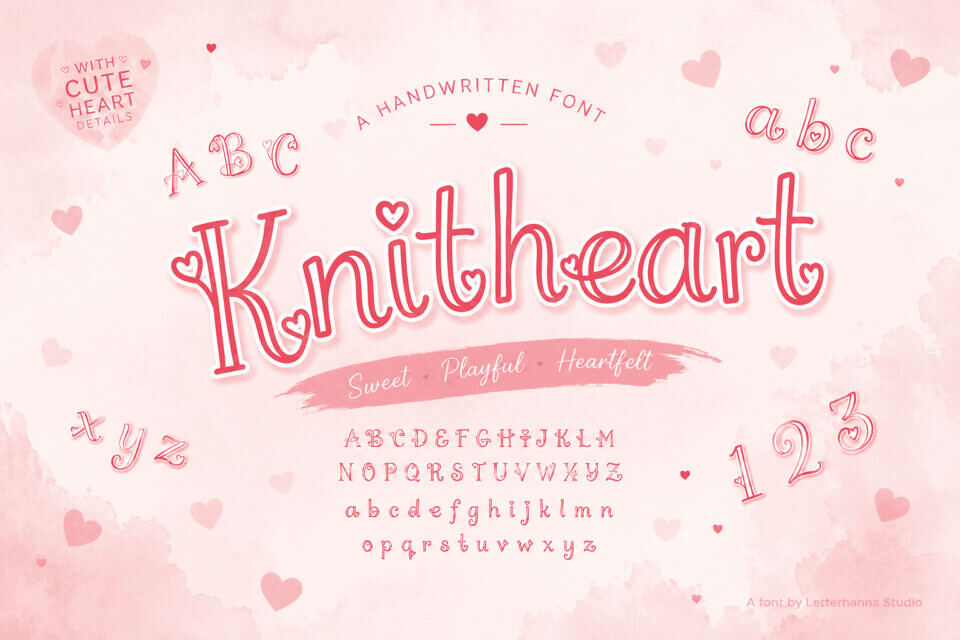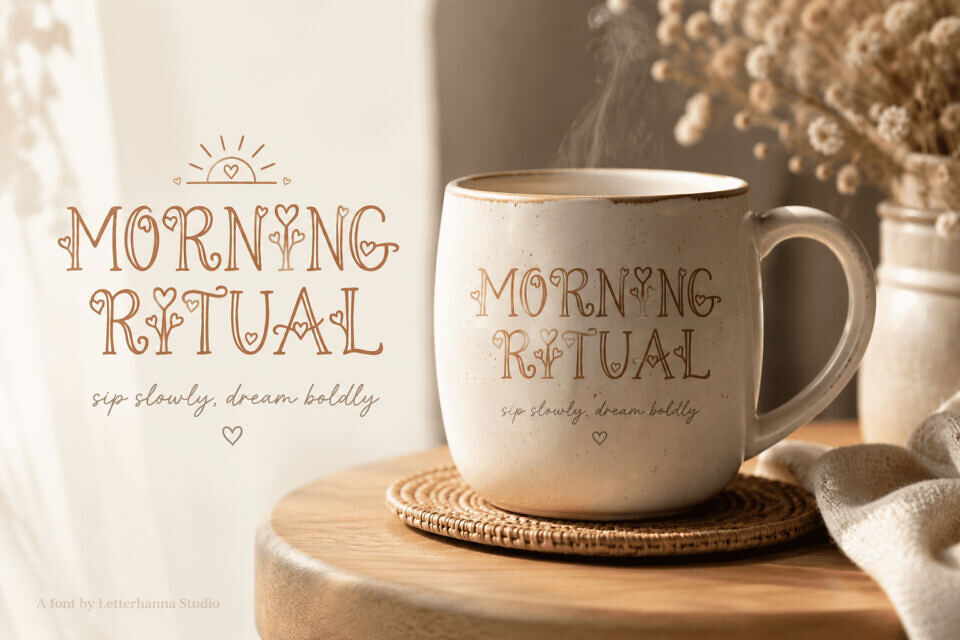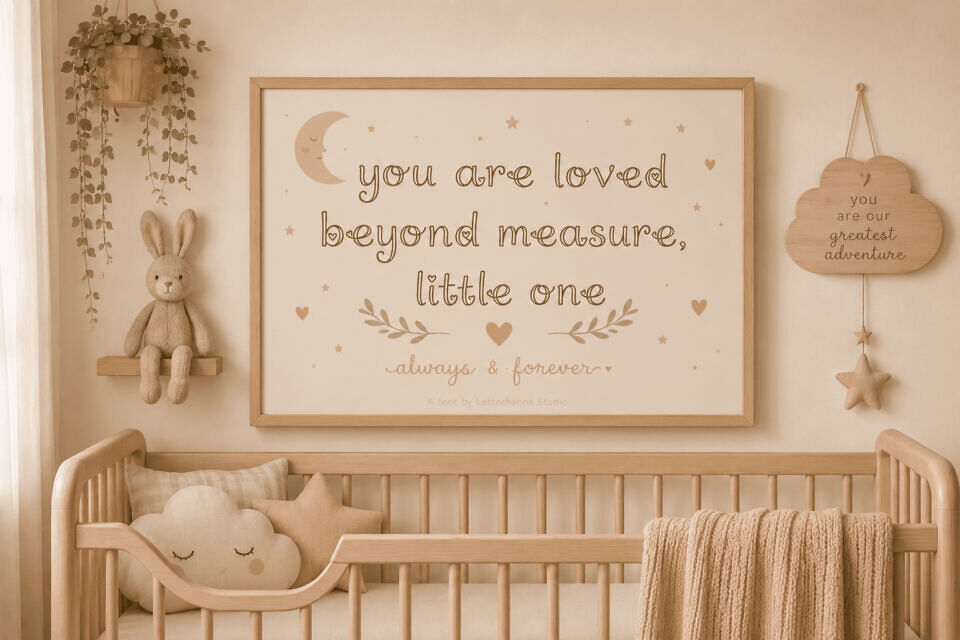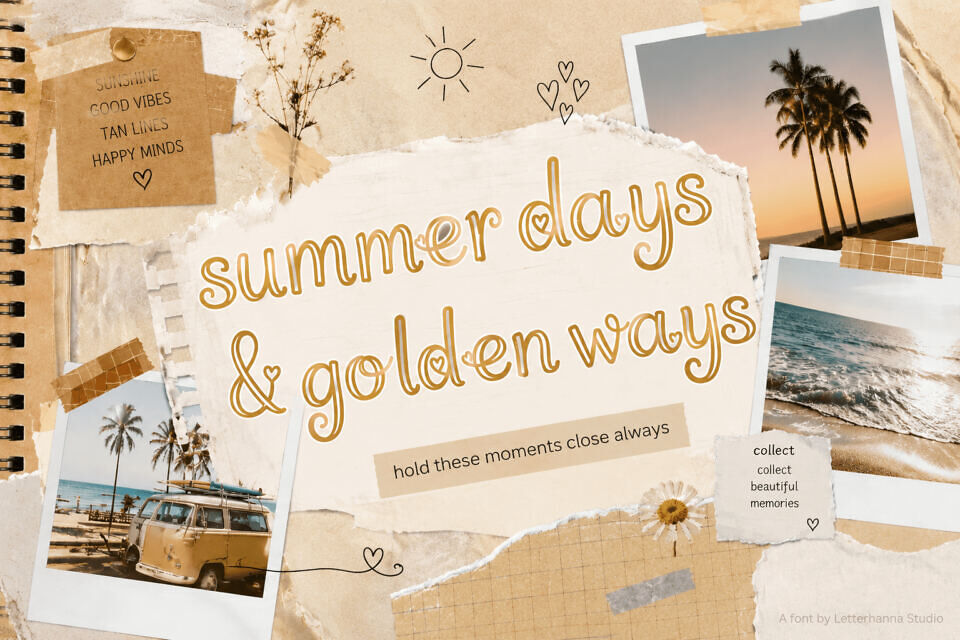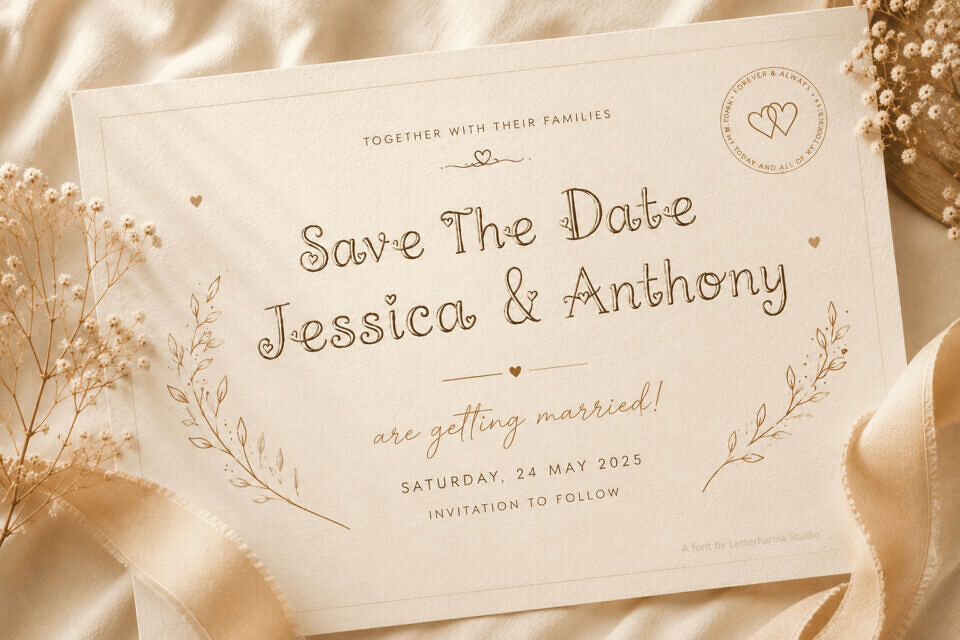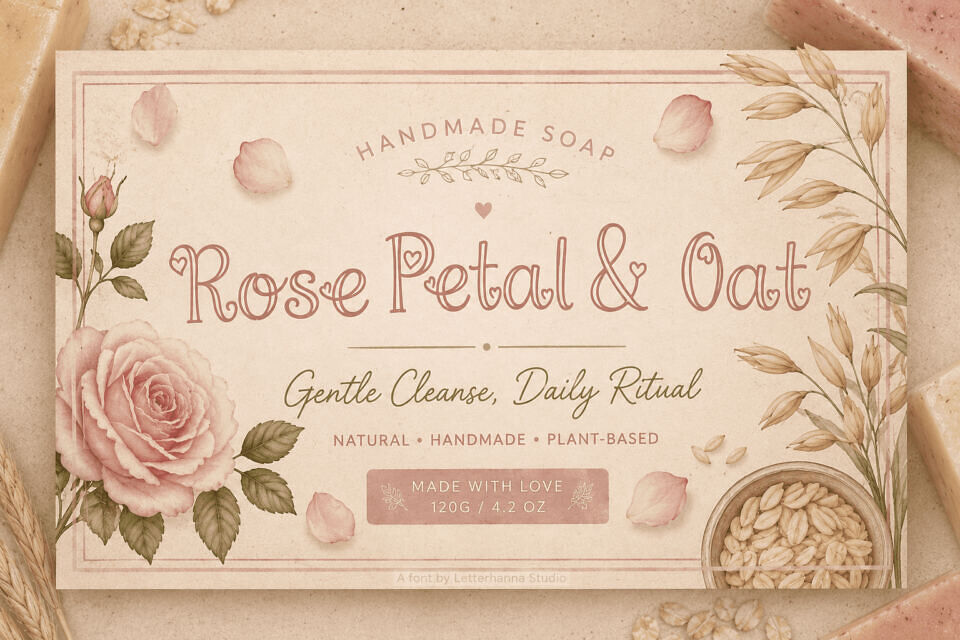
The Knitheart font is designed for creatives and small businesses who pour love into their brand. Inspired by knitting, it brings a warm, tactile feel to typography. Subtle heart accents are woven throughout, adding a touch of joy and intimacy.
This font is perfect for personal, heartfelt projects like wedding suites, children’s books, and gift shop signs, evoking a sense of sweetness and approachability. Its gentle, whimsical vibe makes it ideal for brands that want to connect with their audience on a personal level.